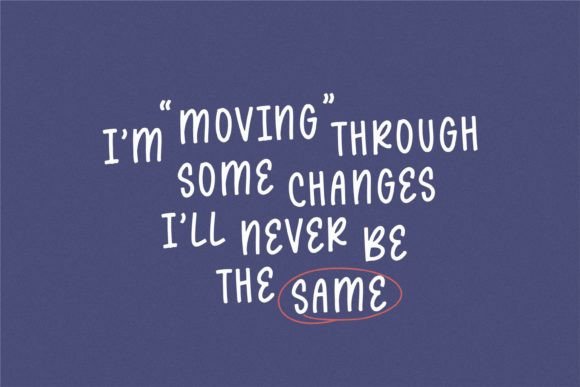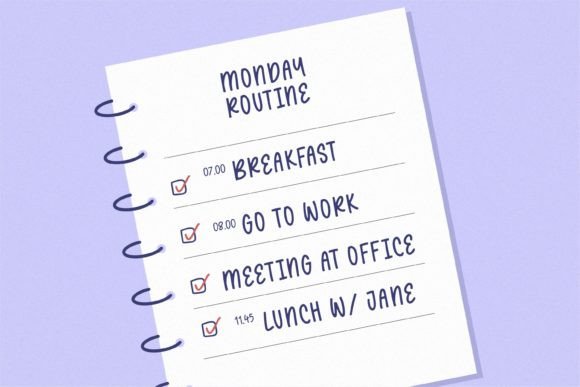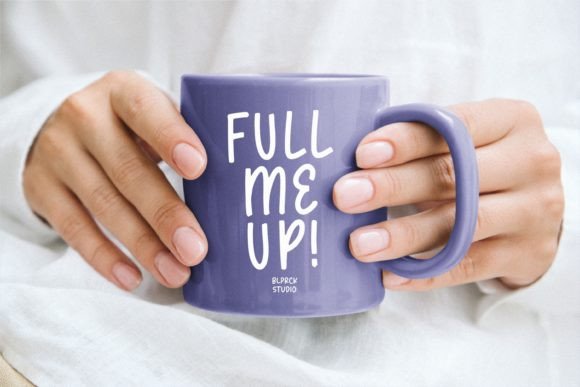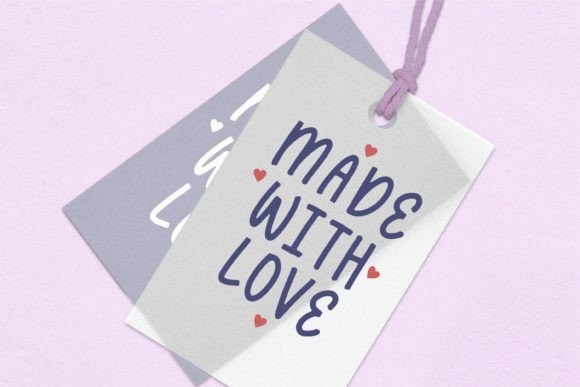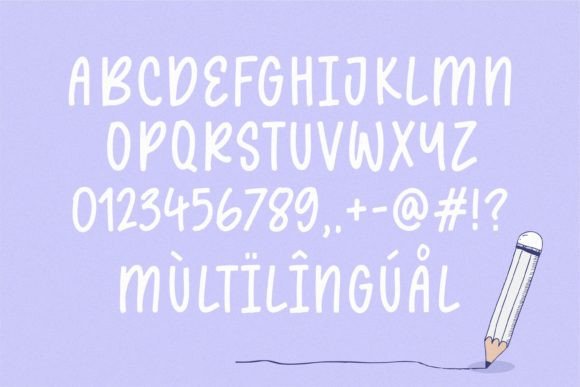
Introducing Blueberry Spring Font: A Charming Handwritten Delight
Are you tired of using the same old fonts for your creative projects? Look no further than the Blueberry Spring Font, a beautiful handwritten font that adds a touch of personality and warmth to your written words. Inspired by the fluidity and uniqueness of human handwriting, this font is perfect for designers, crafters, and writers looking to add a personal touch to their work.
The Inspiration Behind Blueberry Spring Font
The Blueberry Spring Font takes its cue from the natural flow and imperfections of handwritten text. Unlike traditional fonts, which can often seem rigid and uniform, this font celebrates the unique character and charm of human handwriting. Each letter has been carefully crafted to capture the essence of handwritten text, with gentle curves and delicate strokes that evoke a sense of intimacy and warmth.
Whether you’re a designer looking to add a personal touch to your branding, a crafter creating handmade cards and gift tags, or a writer seeking to elevate your journal entries, the Blueberry Spring Font is the perfect choice. Its versatility and charm make it suitable for a wide range of creative projects, including:
• Notes and memos: Add a touch of personality to your everyday notes and memos with this beautiful handwritten font.
• Journal entries: Elevate your journaling practice with a font that captures the intimacy and emotion of handwritten text.
• Quote designs: Create stunning quote designs that showcase the beauty and elegance of the Blueberry Spring Font.
• Handmade cards and gift tags: Add a personal touch to your handmade cards and gift tags with this charming font.
What Sets Blueberry Spring Font Apart
So, what makes the Blueberry Spring Font so special? Here are just a few features that set it apart from other fonts:
• Unique character: Each letter has been carefully crafted to capture the essence of handwritten text, with a unique character that sets it apart from traditional fonts.
• Fluidity: The font’s gentle curves and delicate strokes evoke a sense of fluidity and movement, making it perfect for creating dynamic and engaging designs.
• Warmth: The Blueberry Spring Font has a warm and inviting feel that’s perfect for creating designs that feel personal and intimate.
• Versatility: Whether you’re creating a simple note or a complex design, this font is versatile enough to adapt to any project.